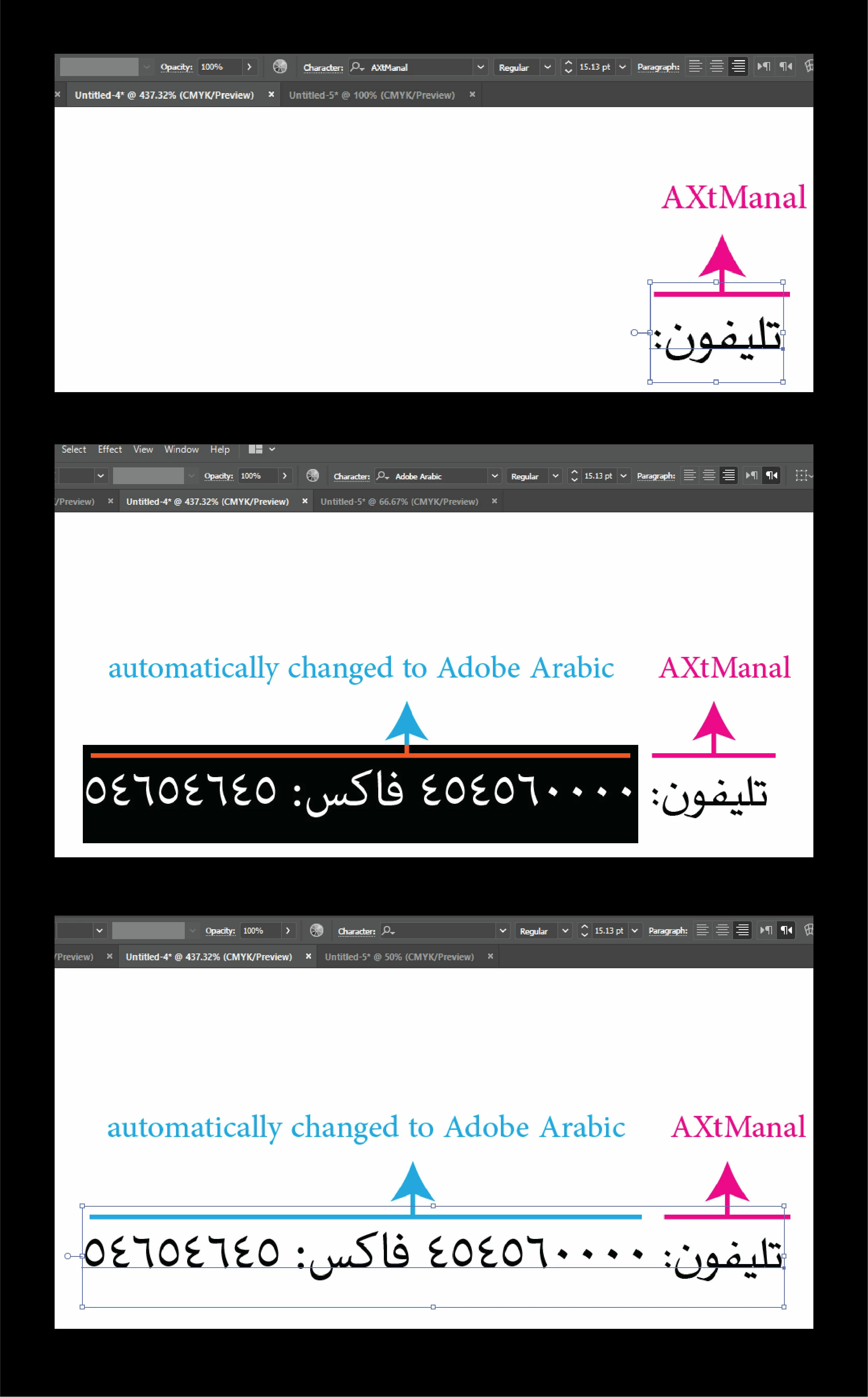
why Axt Arabic fonts not working properly in windows
I am using Adobe Illustrator in Mac and Windows. In Mac I can type AXT Arabic fonts without any problem. But in windows when am typing numbers automatically changed to Adobe Arabic Font and continue as adobe Arabic Font. How can I solve this Issue. If anyone can will suggest will be appreciate.
if you have a mac the original font is muna.
anyway bahij muna, which is a correction edit, is the best font alternative to the original Muna, and to other copycats like axtmanal or others.
bahij muna is the best with more characters for many languages and it's a unicode. this font keeps the same size of axtmanal when you replace the font on any text.
Unfortunately I don't have any windows machine nearby till next week to do any testing for you, having said that, why are you still using an unsupported AXT (Arabic Xtenstion) fonts which were created for QuarkXpress? Adobe products do not support these fonts since CS6. You may want to have a look at other OpenType fonts that are similar to AXT Manal.
Years after Adobe decided not to support AXT fonts, and because of so many publishers are stuck with AXT Manal, few font designers imitated AXT Manal with an OpenType version, specially no party owns the rights to AXT Manal as far as our research concluded.
Our company Grapheast developed a font named GE Alma that looks like AXT Mnal and worked as a replacement for those users who suffered from the lack of support since CS6.